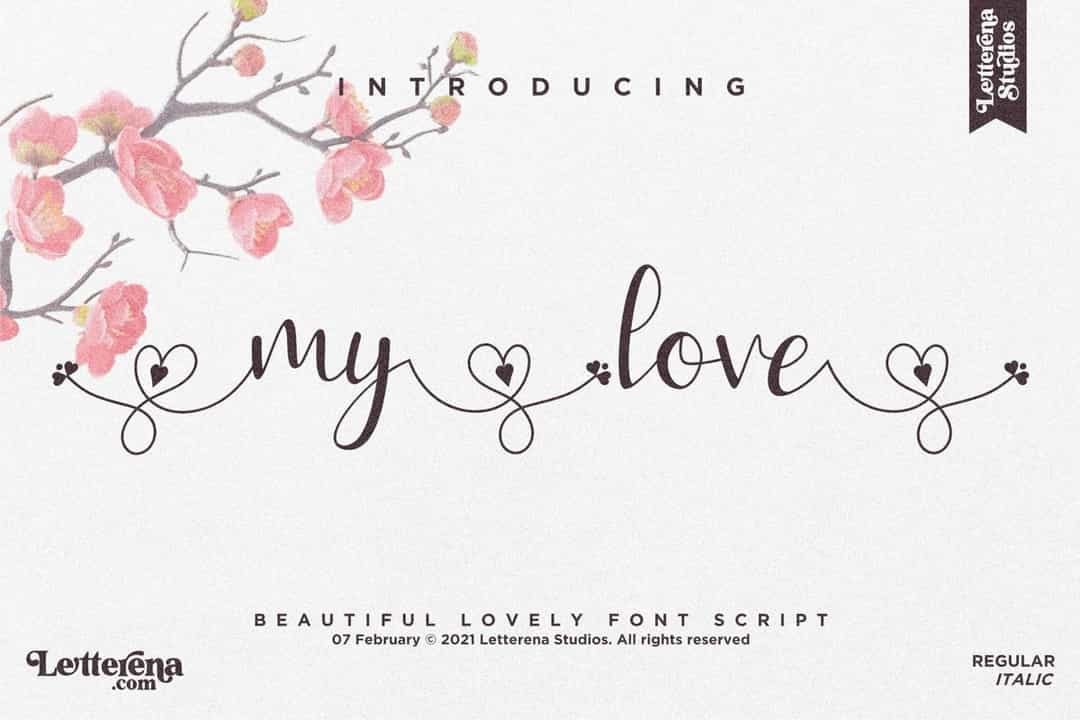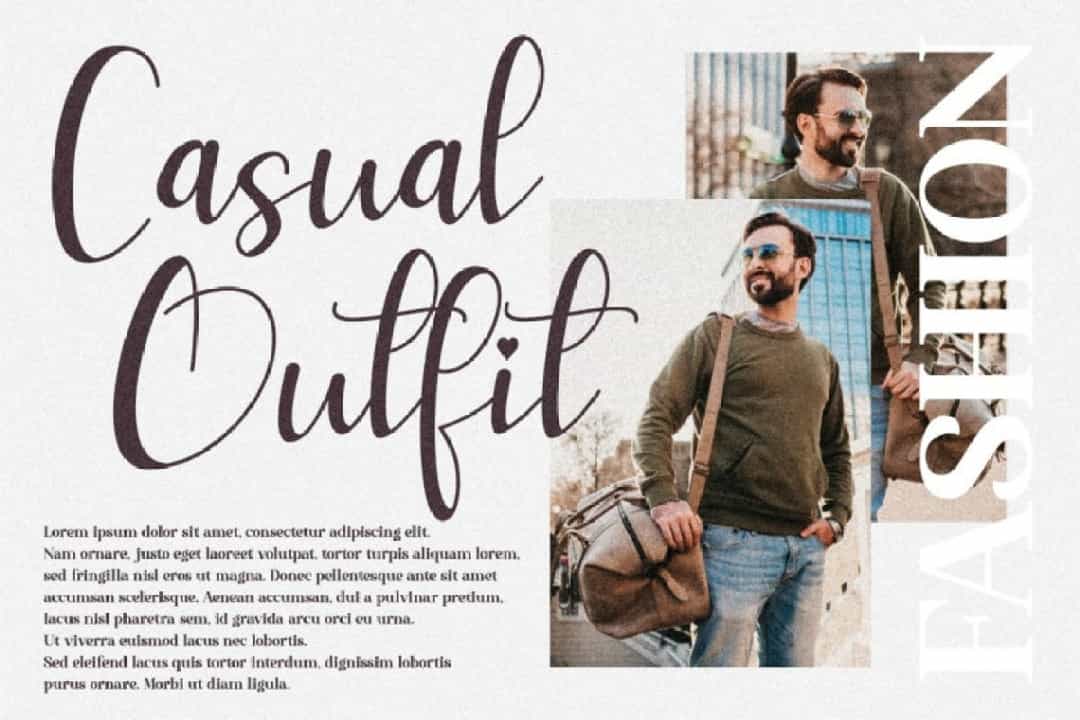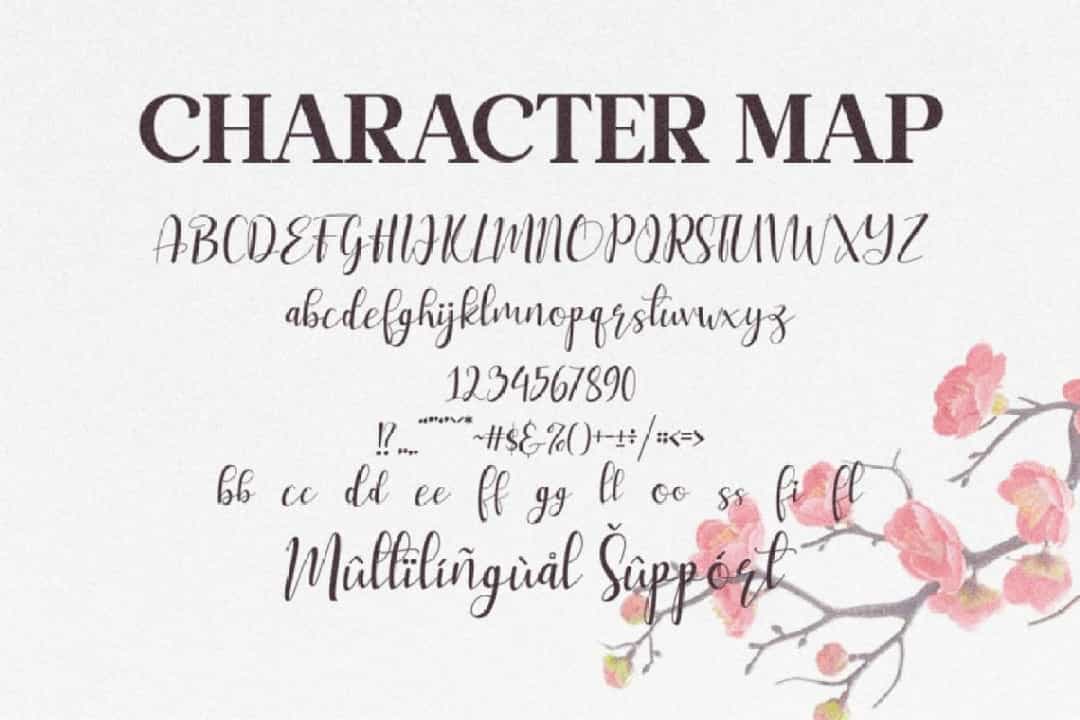
Discover My Love Font, part of the Calligraphy collection—a versatile and unique font perfect for adding a personal touch to your projects. Download it for free and enjoy crafting designs with style, from invitations to social media posts. This font is available exclusively for personal use, giving you the freedom to create without limits. Unlock your creativity with My Love Font today!
My Love beautiful script font created by Letterena is a beautiful calligraphy font that would be ideal for use in different projects including logos branding ideas design for homeware products packaging for products posters mugs posters t-shirts books name cards greeting cards invitation cards labels photographs watermarks special events watermarks etc.